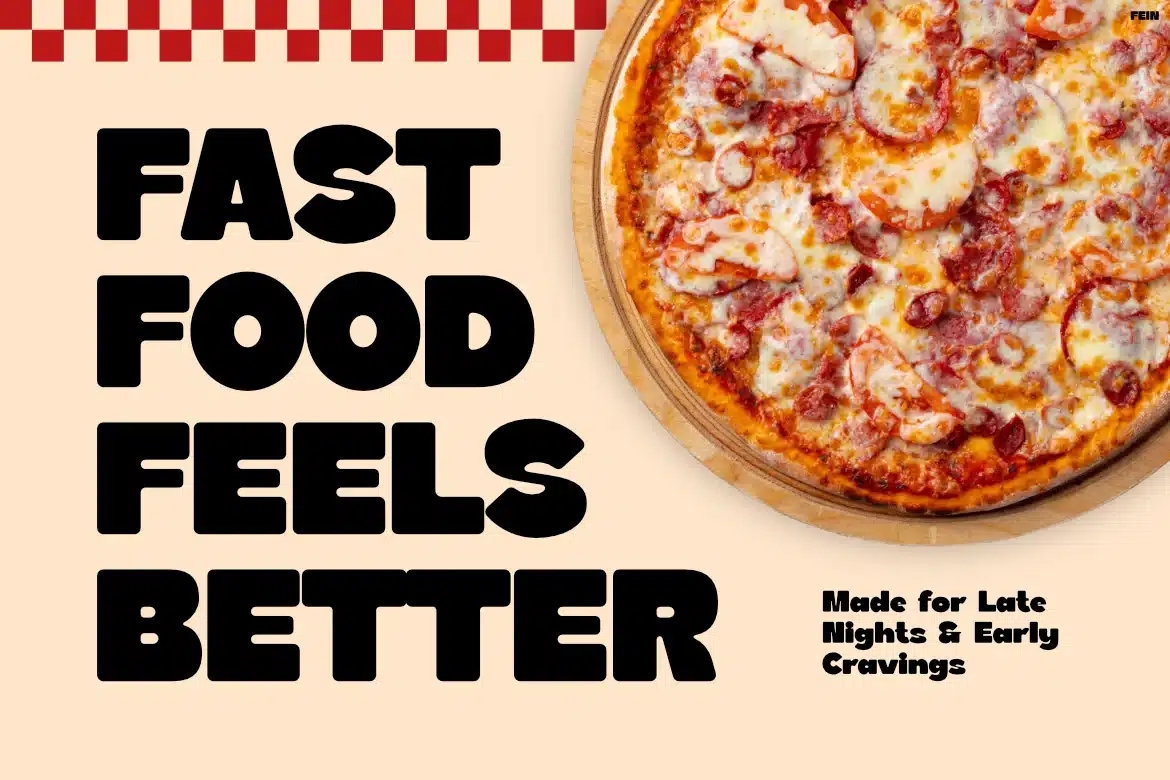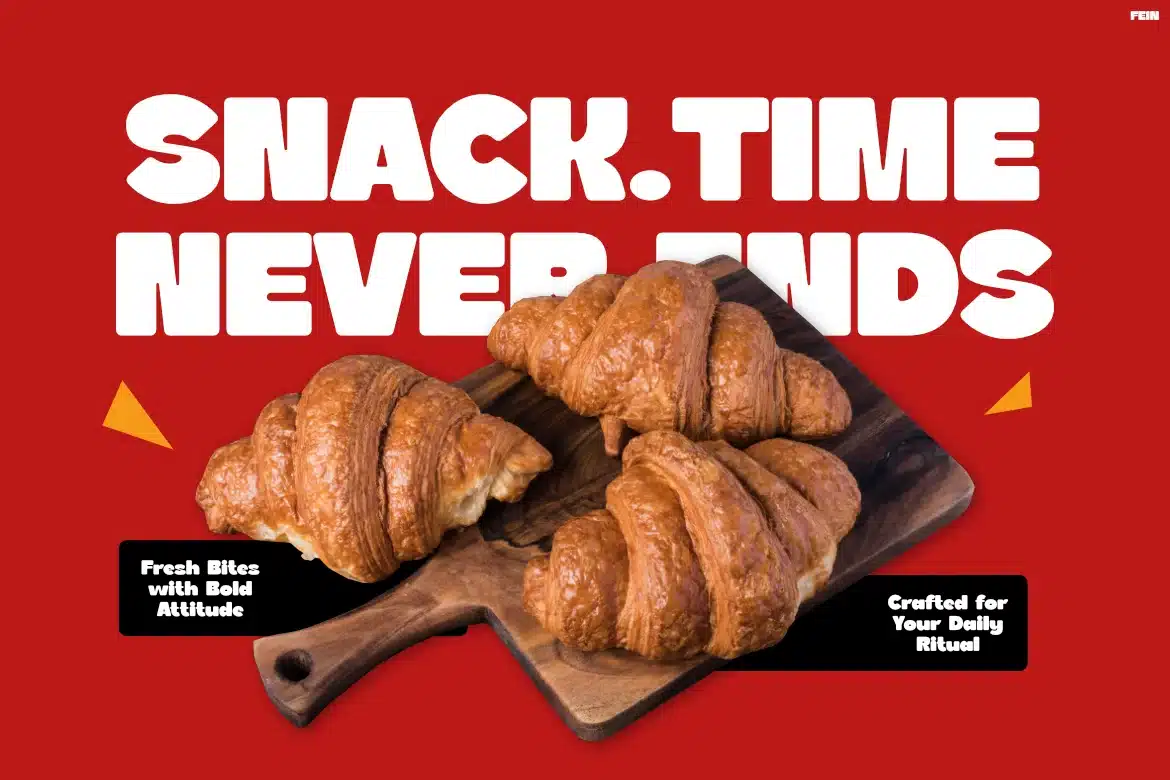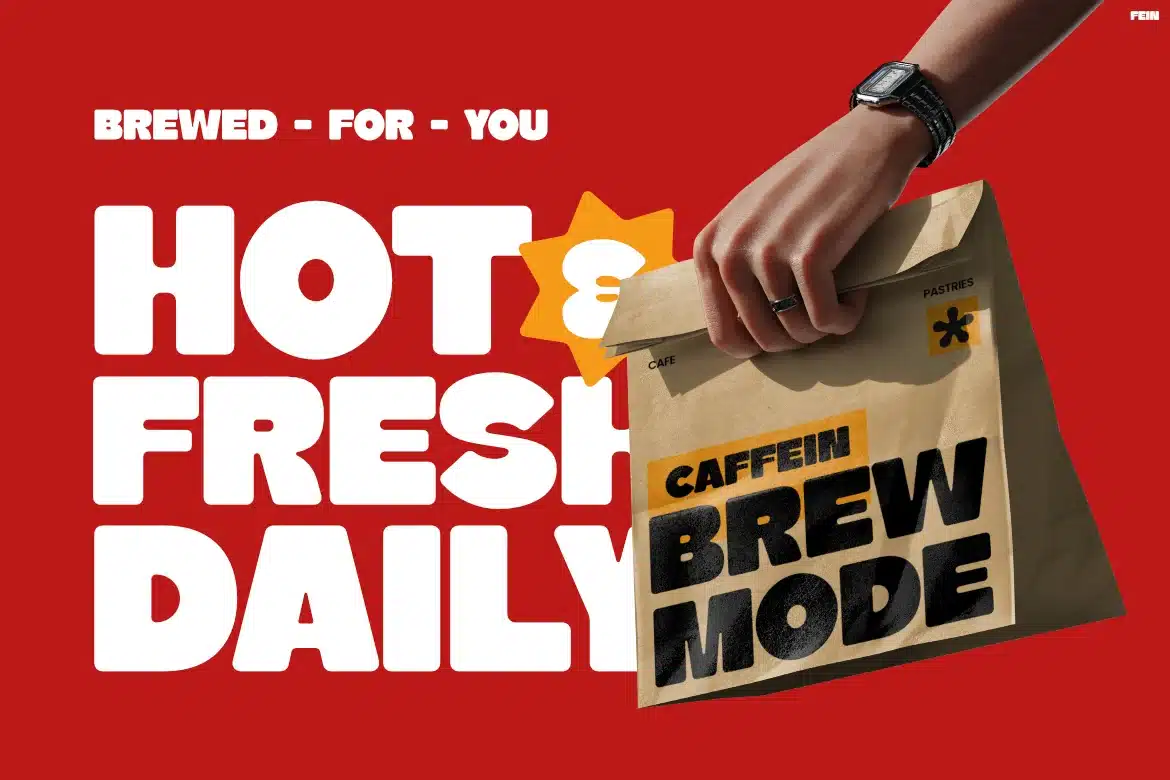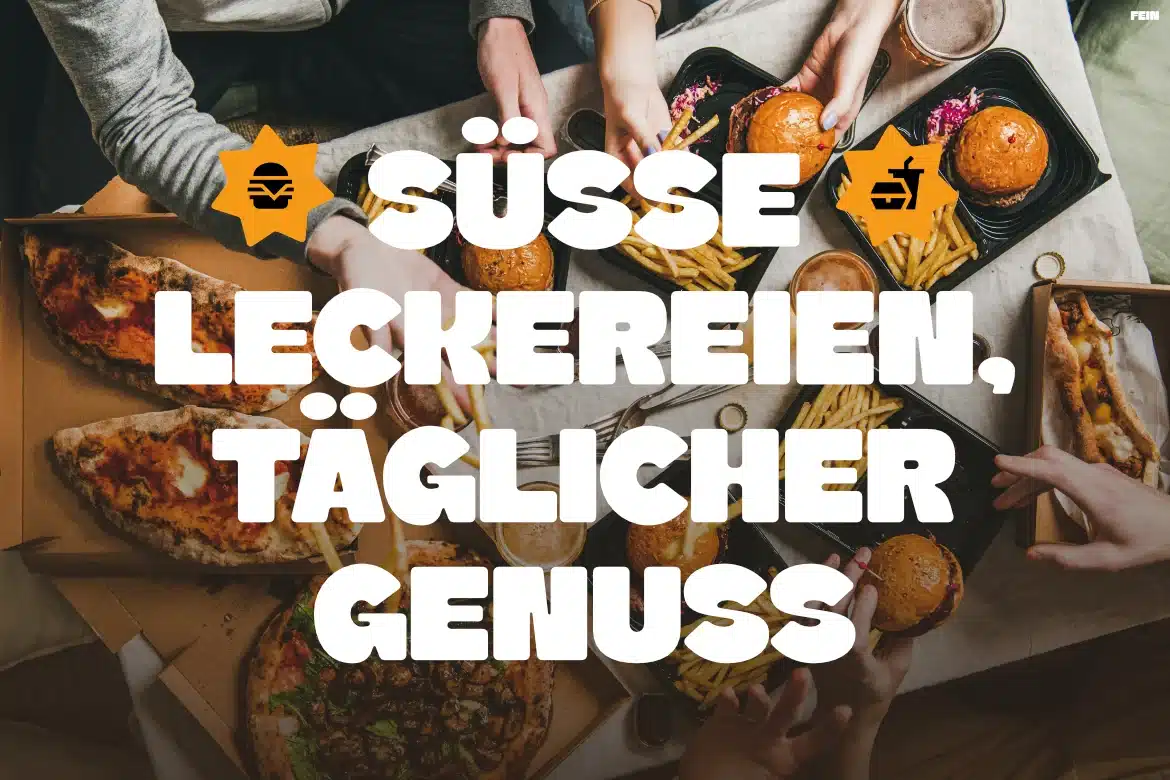
Fein – Modern Bold Display Font
Fein is a bold geometric display typeface for food branding and social media visuals, delivering instant visual impact through its chunky proportions, rounded edges, and low-contrast structure that feels playful yet highly readable.
Designed with a confident, energetic vibe, Fein brings a modern, expressive personality that fits perfectly into fast food campaigns, Instagram ads, and packaging design. Its rounded letterforms and thick strokes create a friendly, approachable tone while still commanding attention in crowded layouts. This font thrives in headline-driven designs, making it ideal for branding, posters, menus, product packaging, and digital promotions where clarity and character must work together.
From bold burger ads to vibrant café branding, Fein helps designers create attention-grabbing headlines that stop the scroll and drive engagement. Its strong visual weight makes it perfect for posters, social media graphics, app UI banners, and editorial highlights, especially in food, lifestyle, and retail industries. If your goal is to deliver a fun, appetizing, and high-impact message, Fein transforms ordinary text into a memorable visual statement that connects instantly with audiences.
Key Features :
Strong Visual Impact
- Thick, bold strokes ensure high visibility even at a distance
- Perfect for headlines, banners, and promotional layouts
Playful Geometric Style
- Rounded shapes create a friendly and inviting tone
- Balanced proportions maintain readability across sizes
Versatile for Modern Design
- Works seamlessly in digital and print projects
- Ideal for branding, packaging, social media, and advertising
Multilingual Support (67 Languages)
- Designed for global reach with extended character support
- Helps brands communicate across diverse audiences
Easy to Use & Adapt
- Clean structure makes layout and pairing effortless
- Suitable for both beginner and professional designers